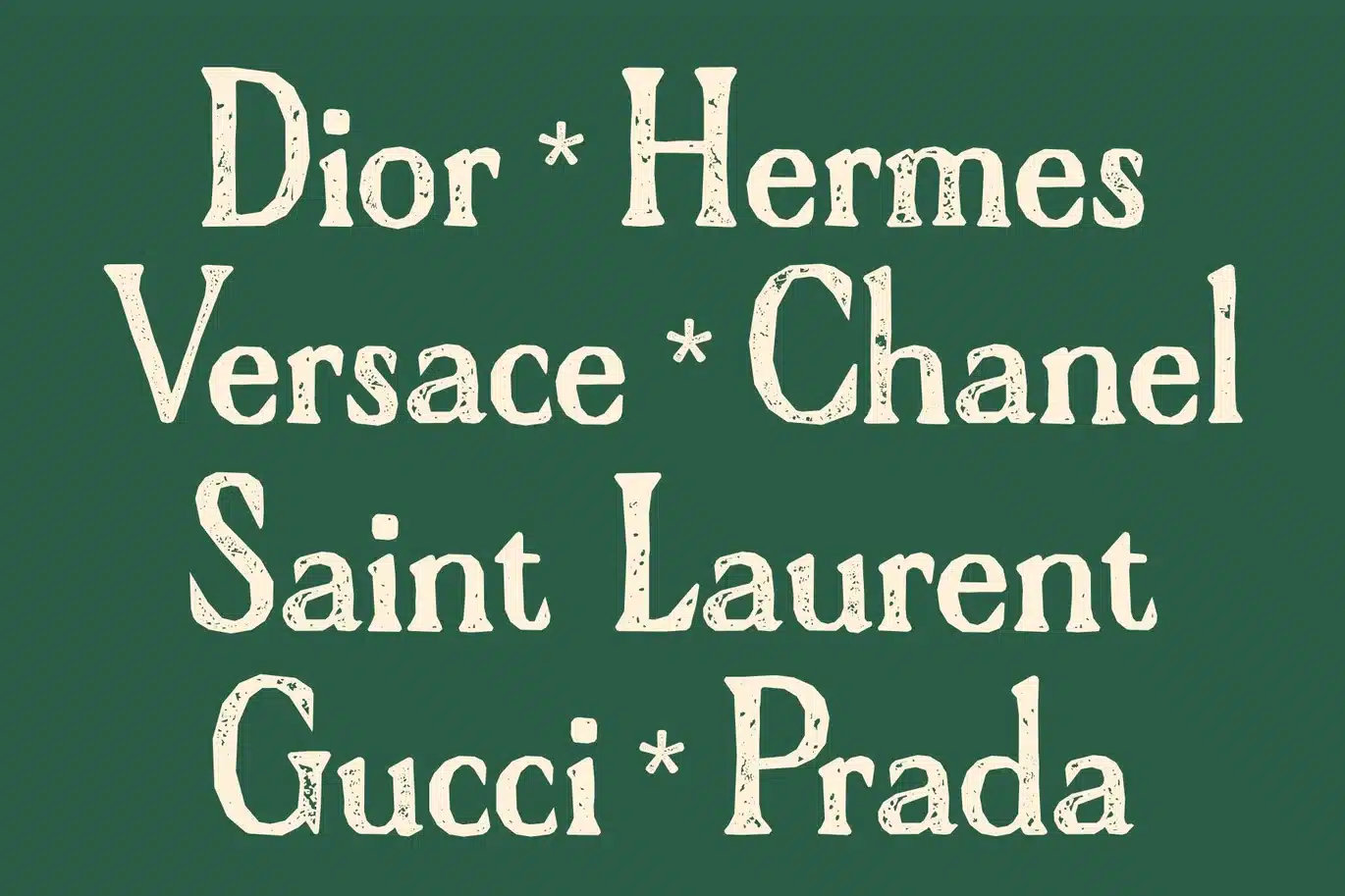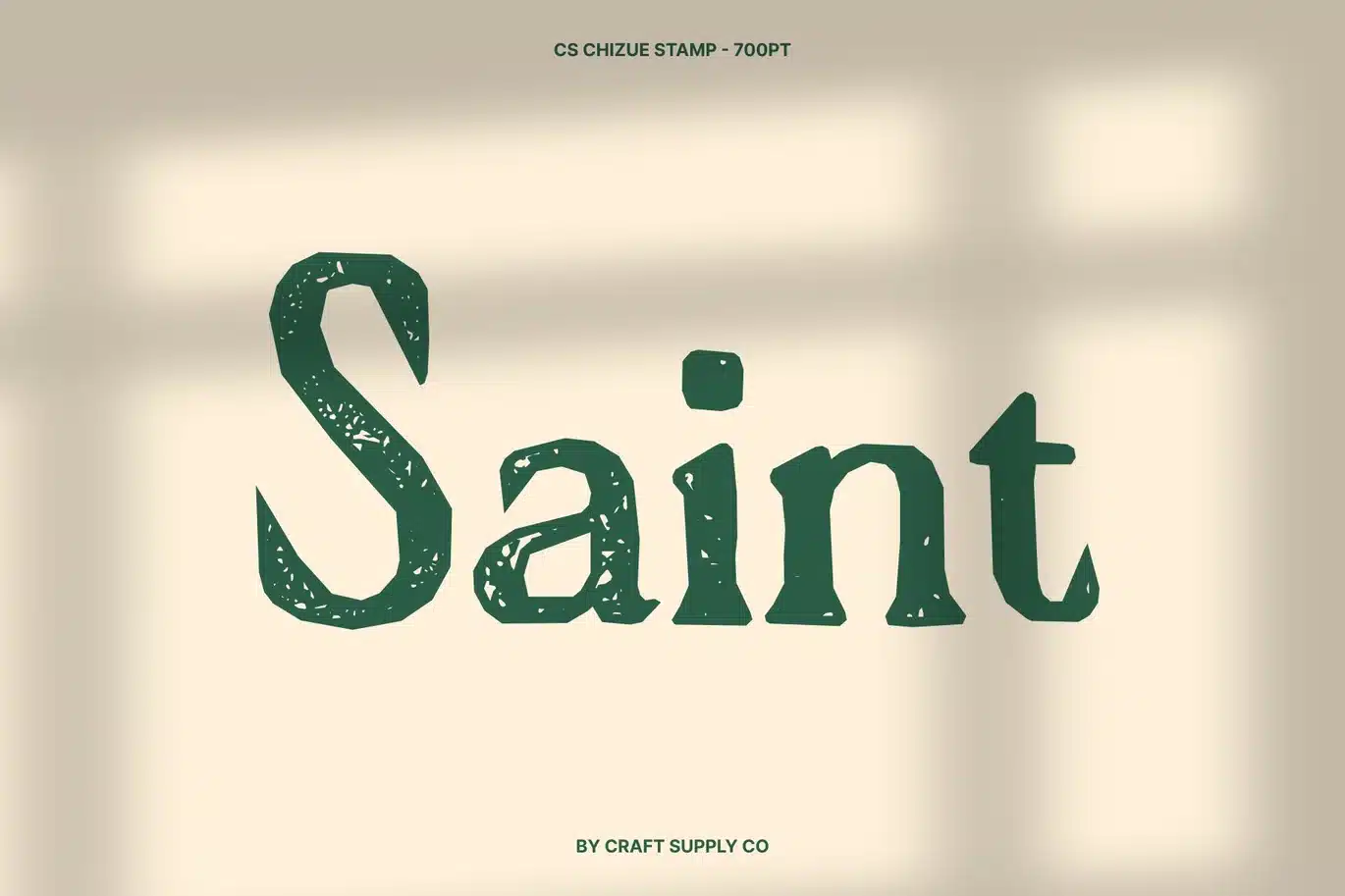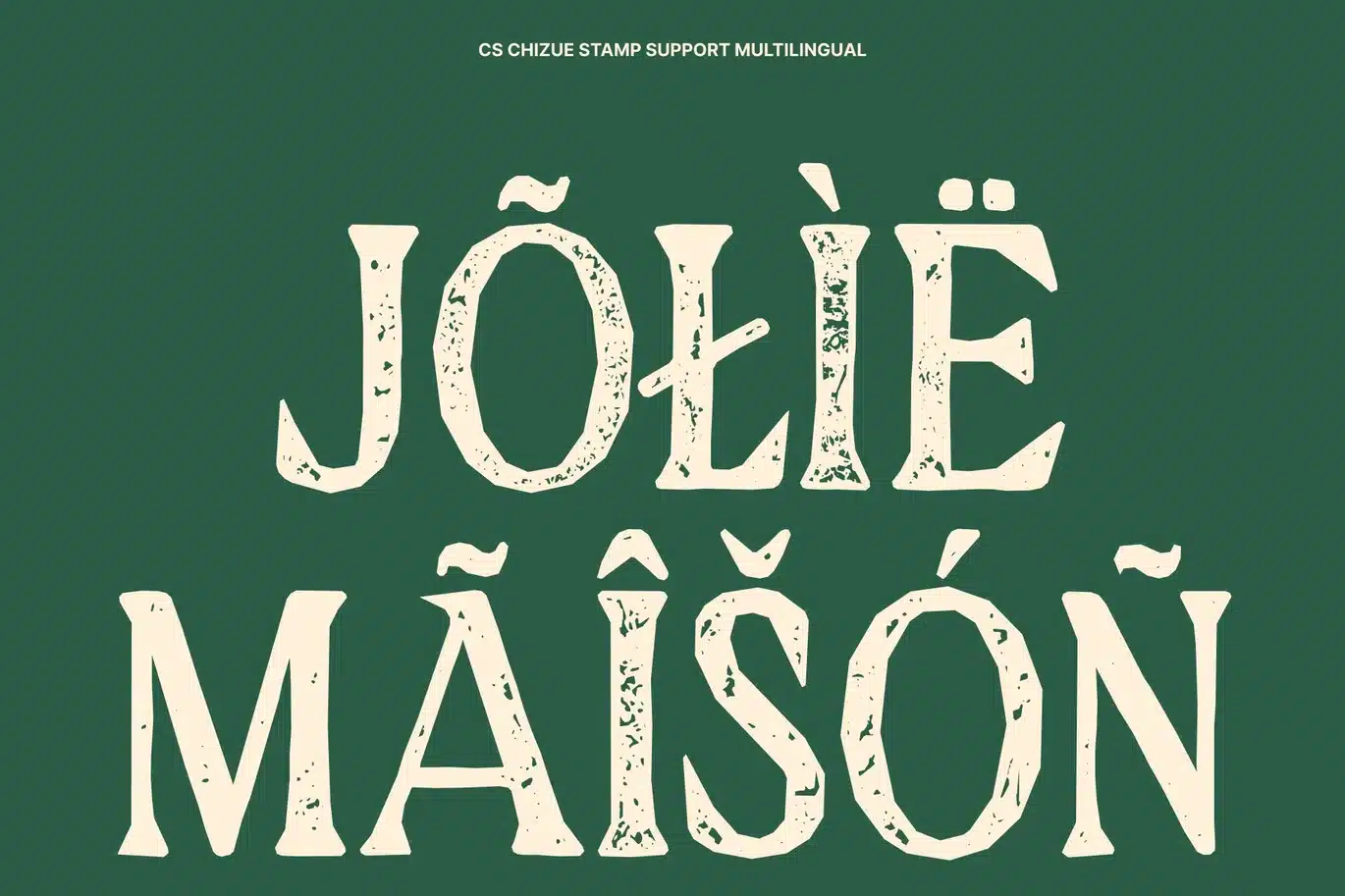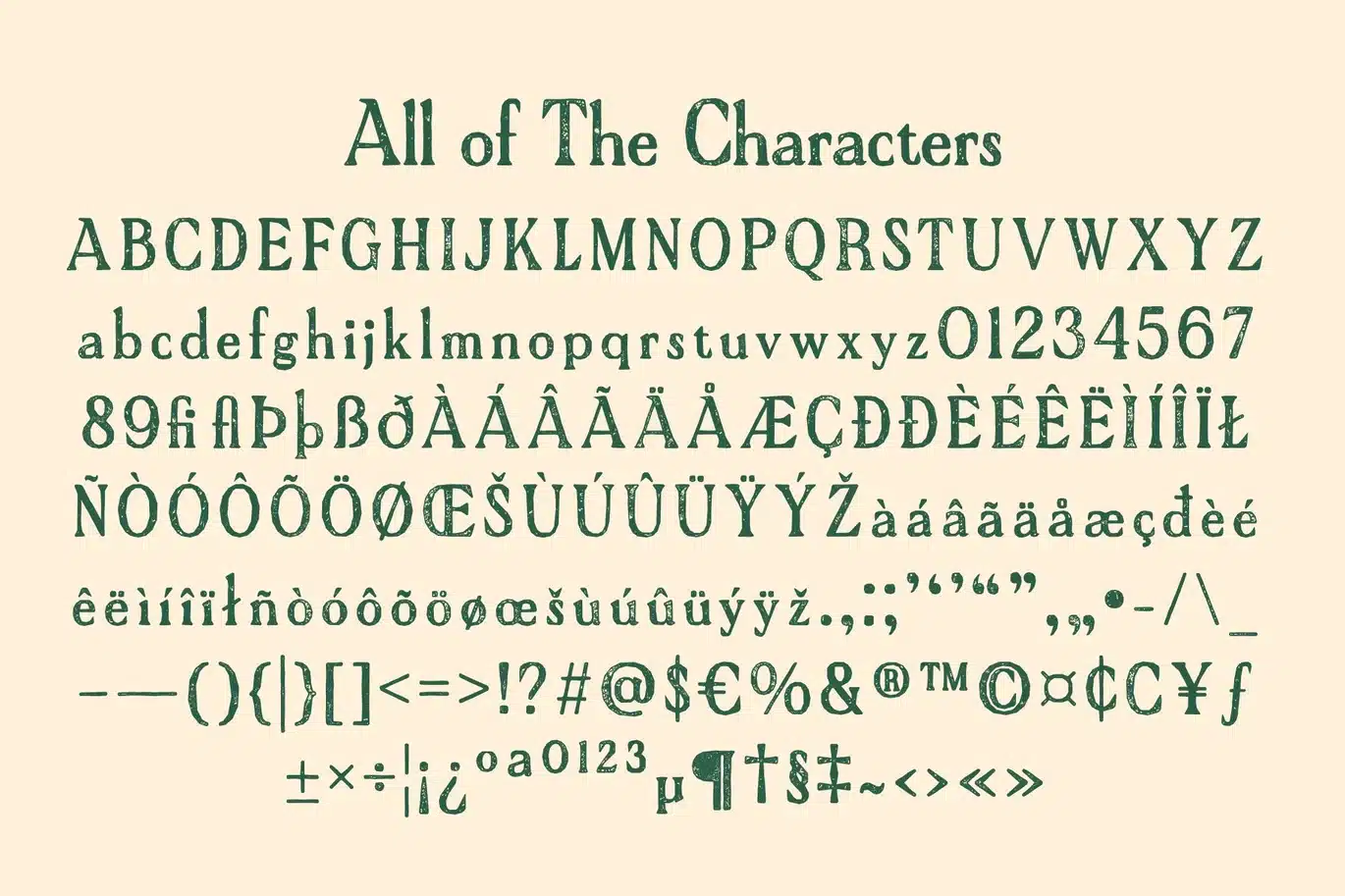
Chizue Stamp Font
CS Chizue Stamp – Compact Elegance with Vintage Character
Modern Condensed Serif with Professional Sophistication
This is a modern condensed serif font designed with narrow, refined letterforms that convey professionalism and elegance. Its sleek proportions create a sophisticated visual presence while efficiently utilizing space, making it ideal for layouts where clarity and style must coexist within limited dimensions. The added stamp effect introduces a subtle vintage texture, giving the font a distinctive printed character.
Space-Efficient Design with Artistic Texture
The compact structure allows more text to fit comfortably without sacrificing readability. Enhanced with a stamp effect, the font features delicate distressed edges and ink-like variations that evoke the charm of traditional printing. This textured finish adds warmth and personality while preserving the clean, structured form of the typeface.
Refined Structure with Timeless Appeal
This font balances modern precision with classic serif elegance. Its clean lines, balanced spacing, and subtle decorative details create a polished look that communicates authority and confidence. The vintage stamp texture enriches the design, giving it depth and visual interest without overwhelming its professional appearance.
Ideal for Corporate, Editorial, and Professional Design
Perfect for corporate branding, formal documents, editorial layouts, packaging, and professional presentations, This font delivers both efficiency and sophistication. The combination of condensed structure and vintage stamp texture ensures a distinctive typographic voice that feels elegant, reliable, and visually refined.